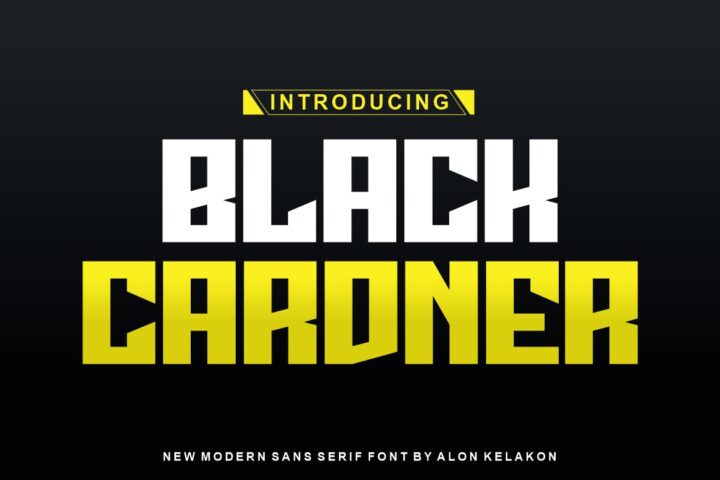
Black Cardner Font
Black Cardner Font is unique . Ready to use for your design like labeling, clothing, movie sceen, poster, movie title, gigs, album covers, logos, and much more.